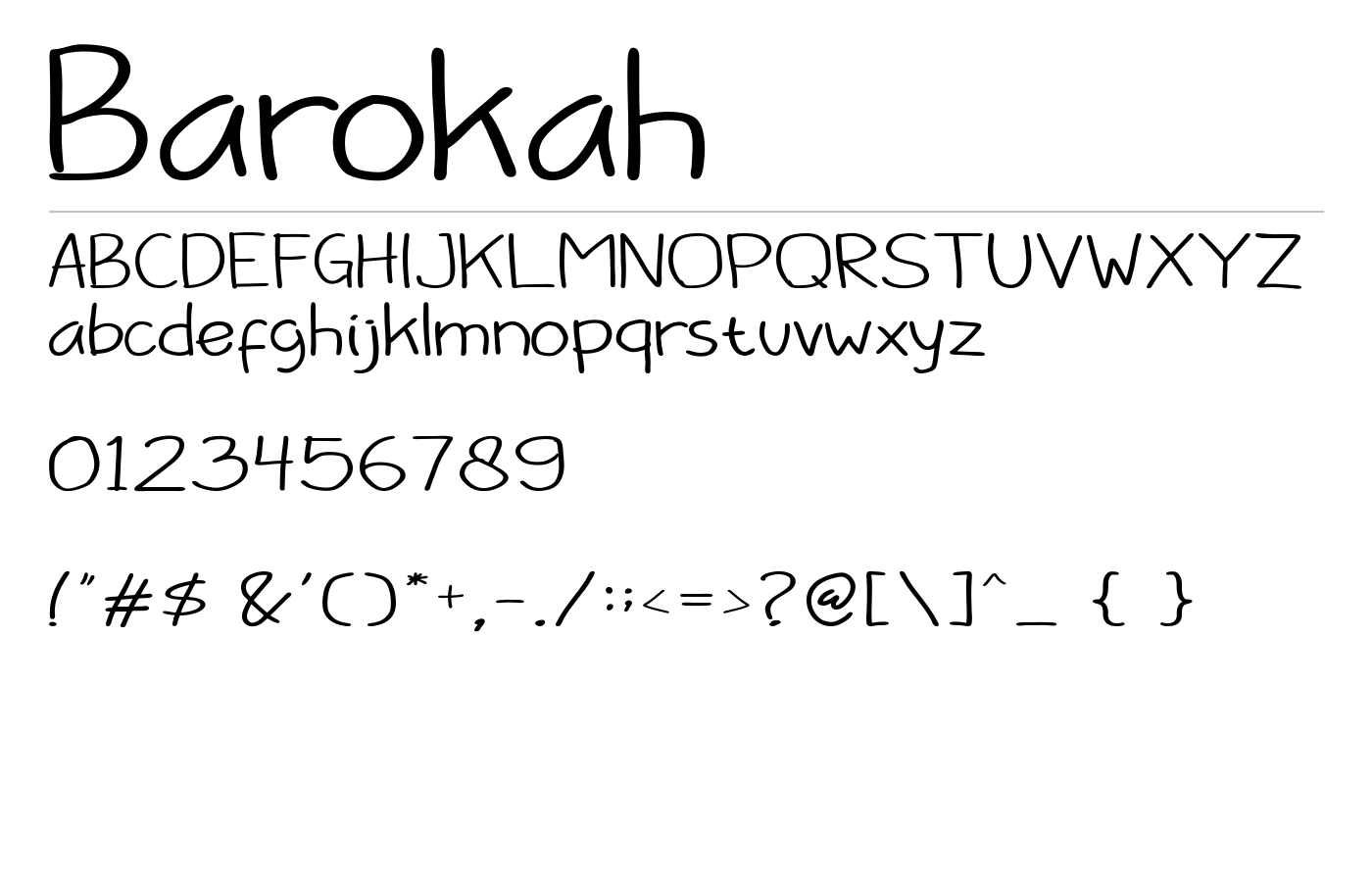
Barokah is a playful and casual handwritten sans serif font with a light weight and slender, slightly irregular strokes that give it a friendly and approachable feel. Its simple, tall letterforms with moderate spacing and unique quirky details make it ideal for informal, creative, and youthful designs such as children's books, personal branding, and fun posters. This font works well in contexts where a warm, personal touch and readability are desired.
Barokah Font
About Barokah Font